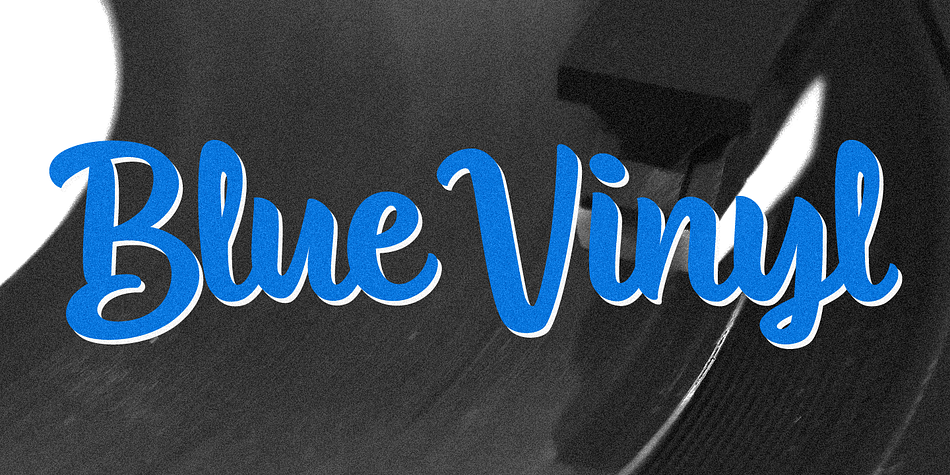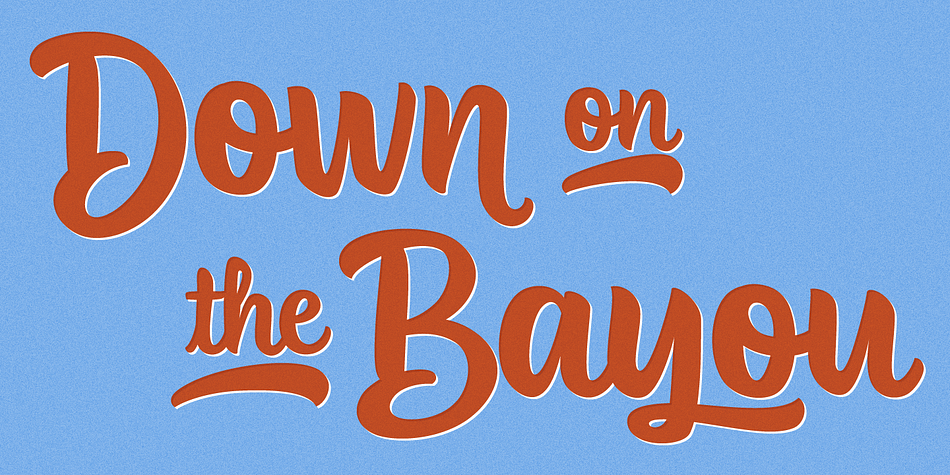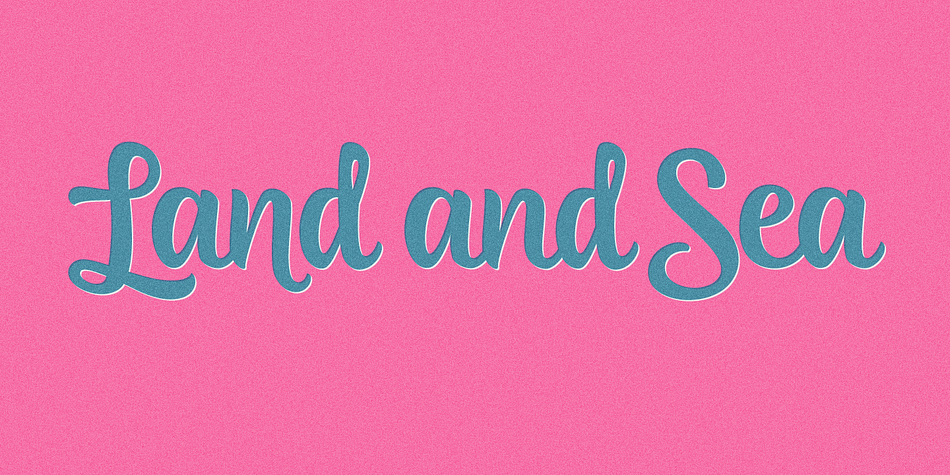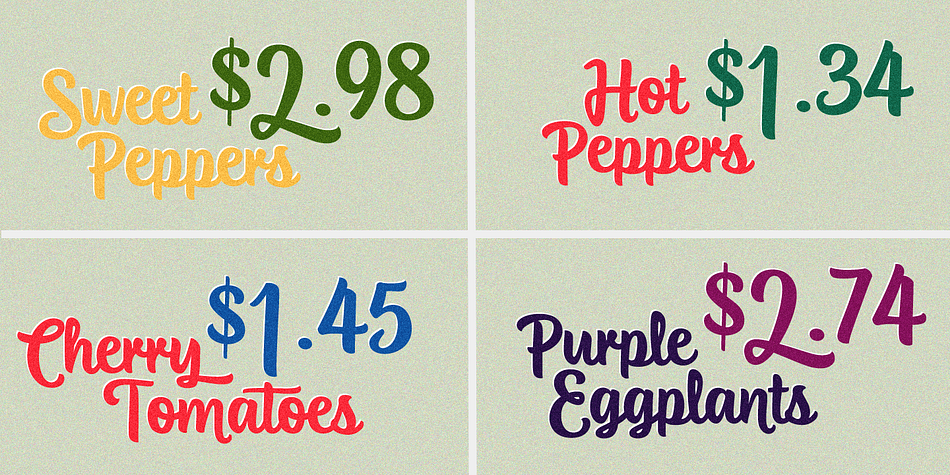
Blue Vinyl is a brush script font family. This typeface has two styles and was published by Jess Latham.
Blue Vinyl is another script face in a series of script faces inspired by sign painting.
This script font contains fun opentype features like: uppercase swashes, lowercase swashes, swashed numerals, alternates, ligatures and catch words.
Included in this family: Blue Vinyl Regular and Blue Vinyl Bold.